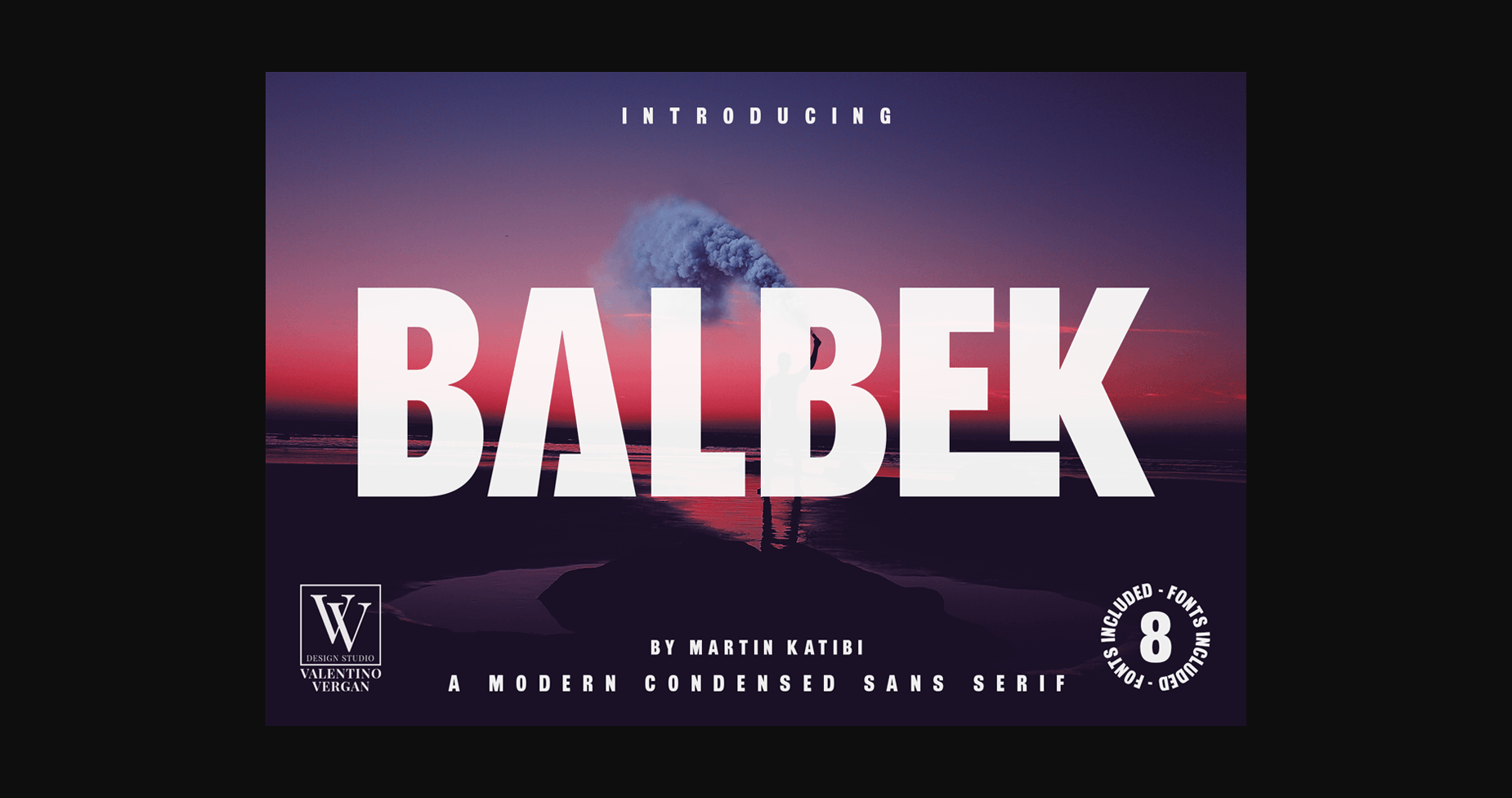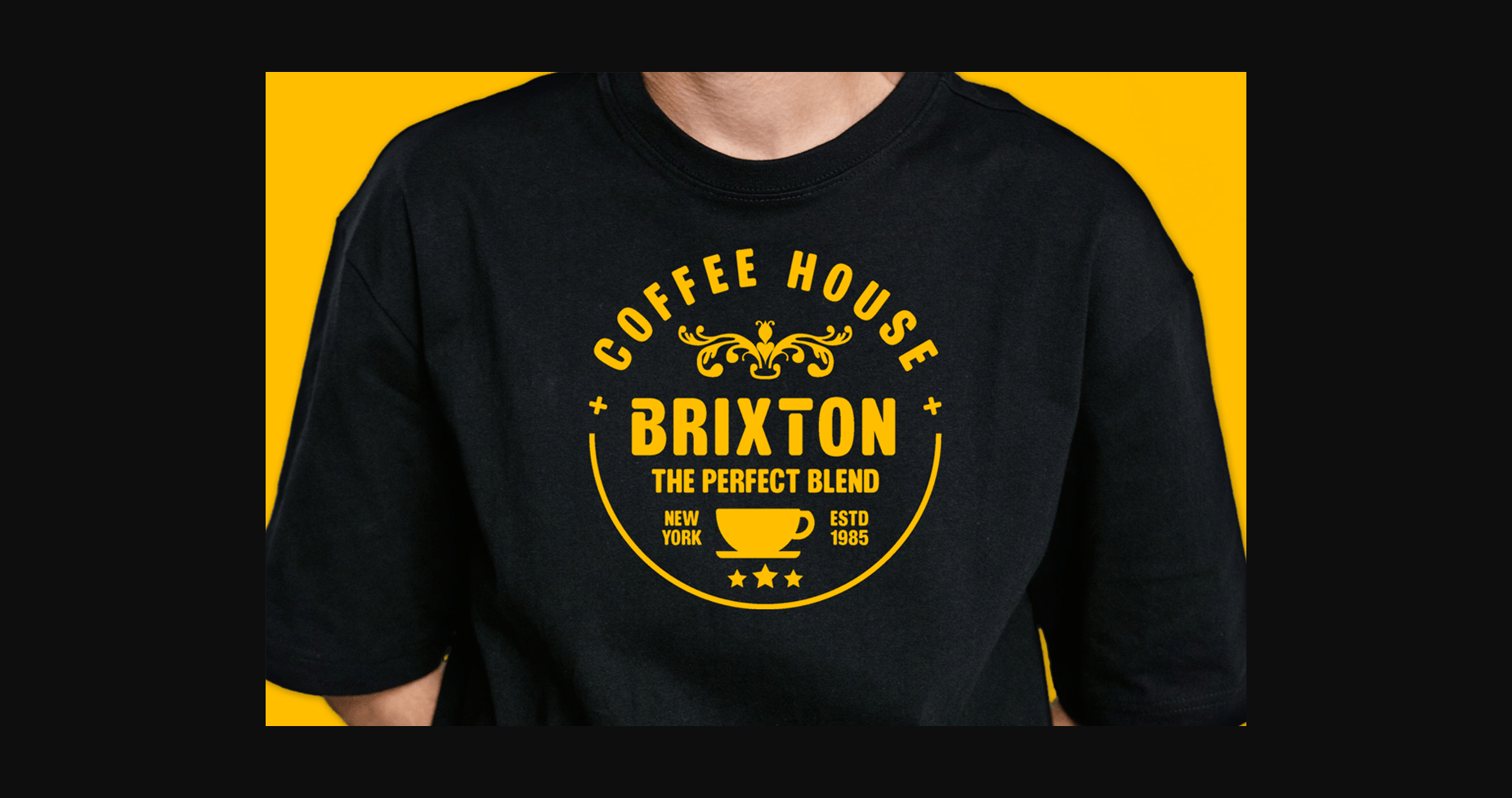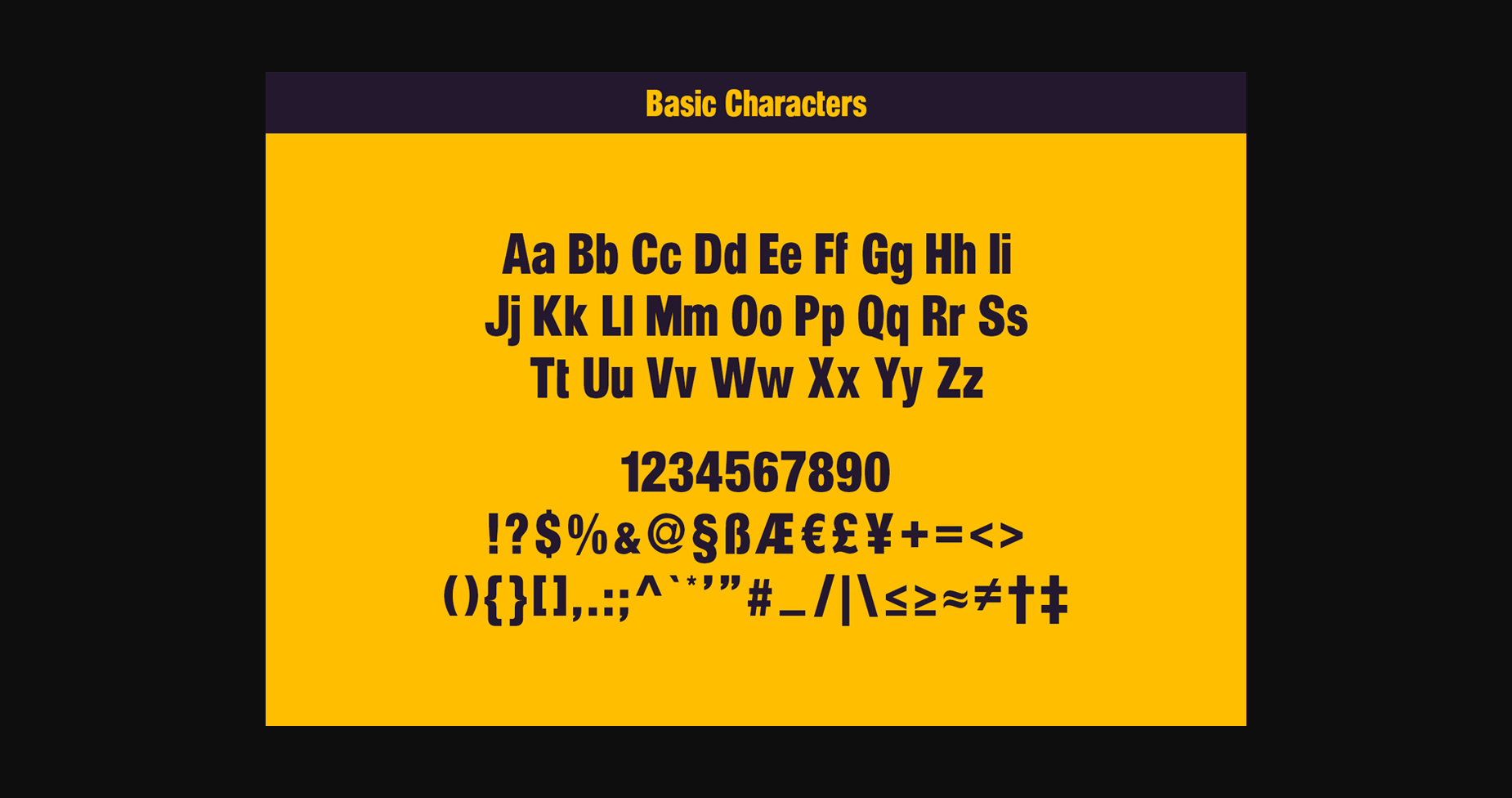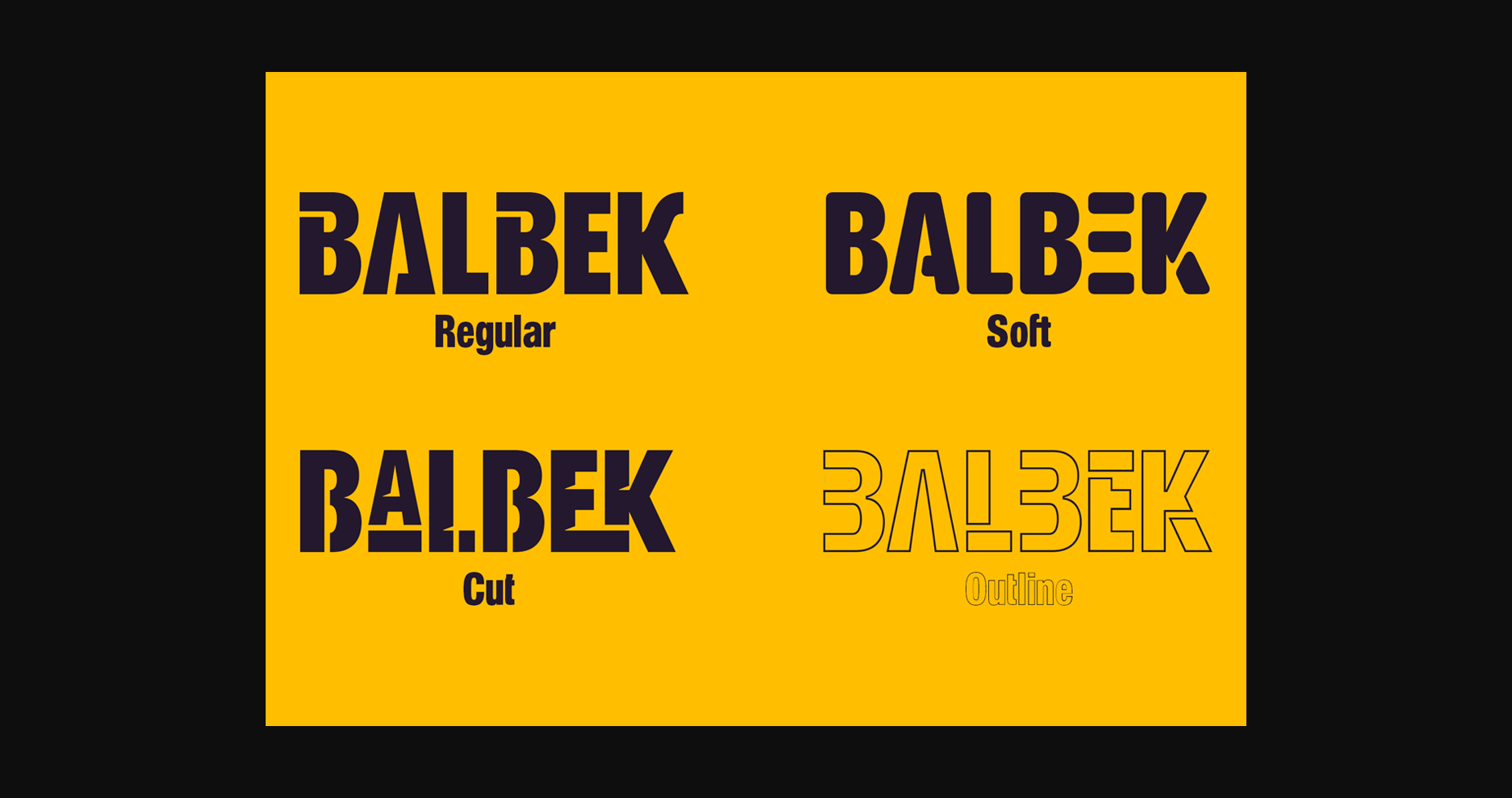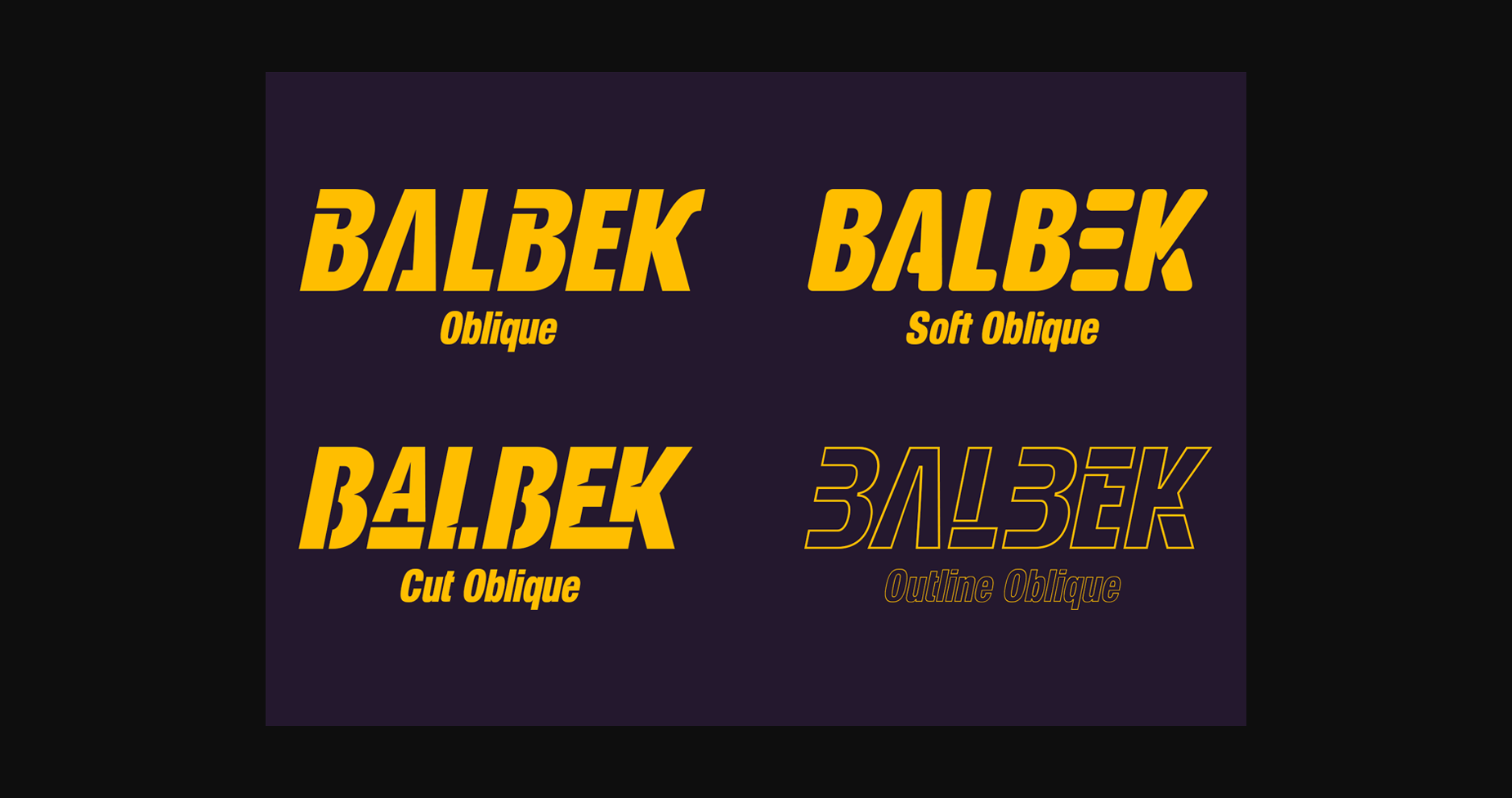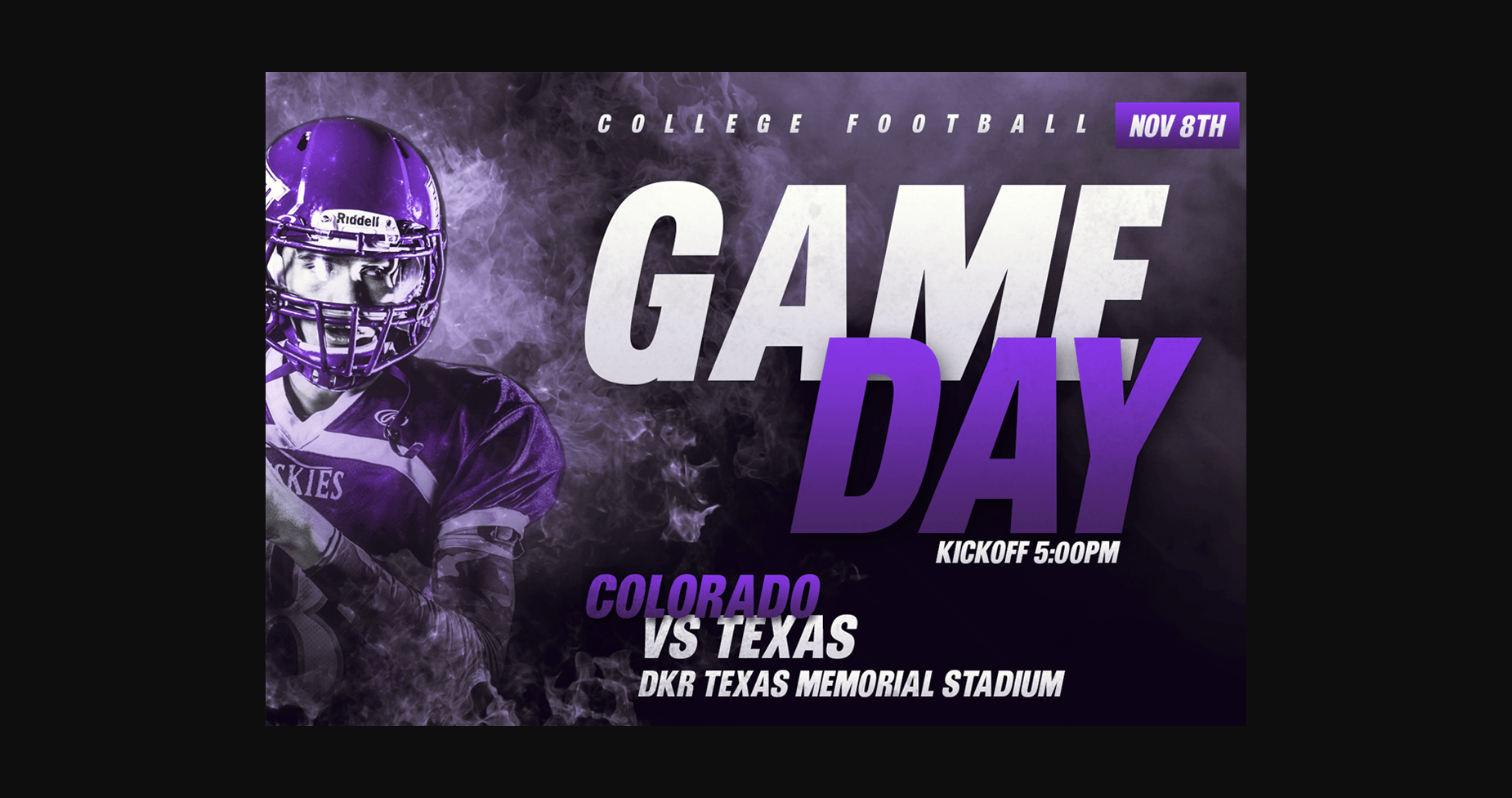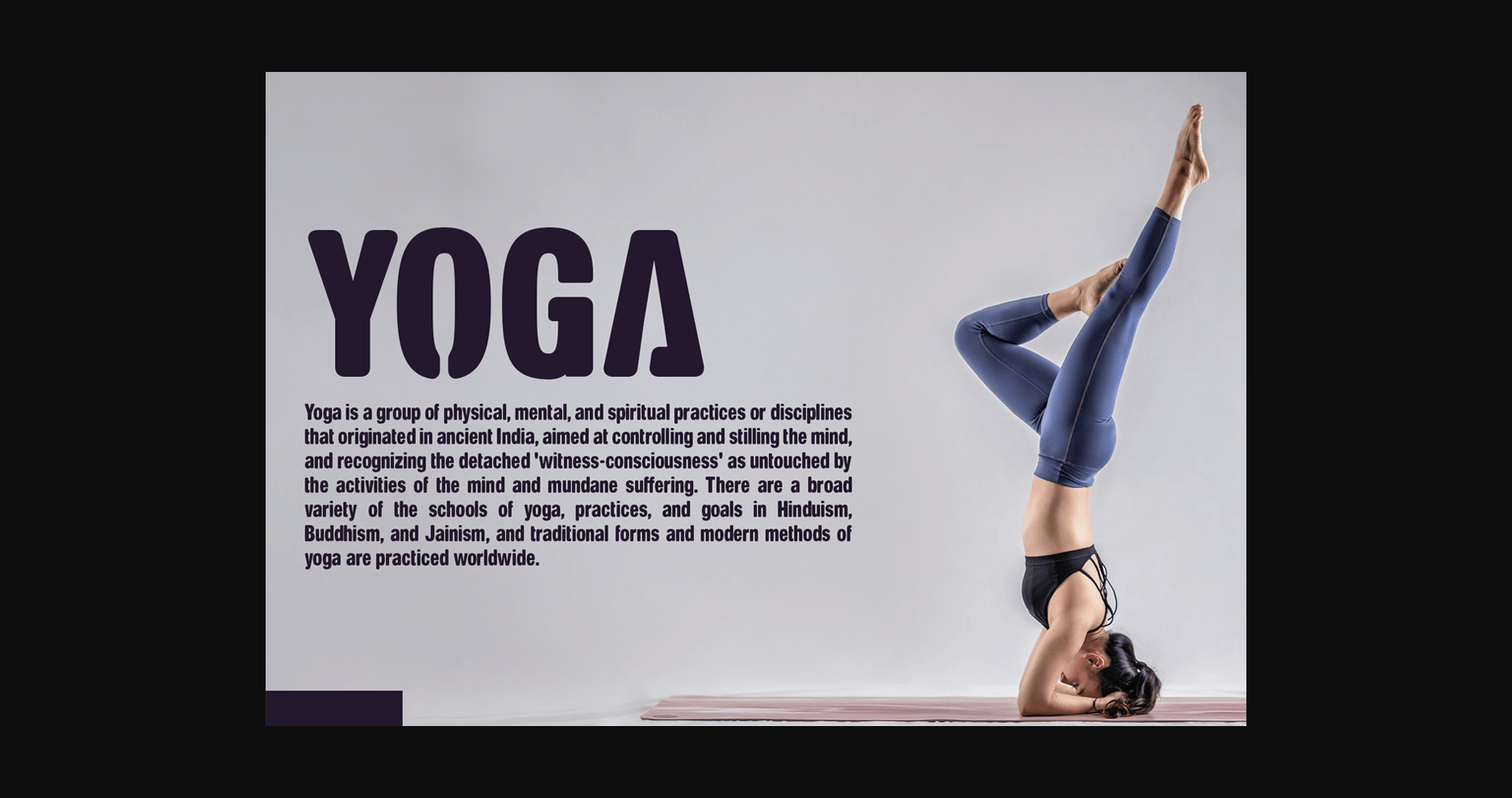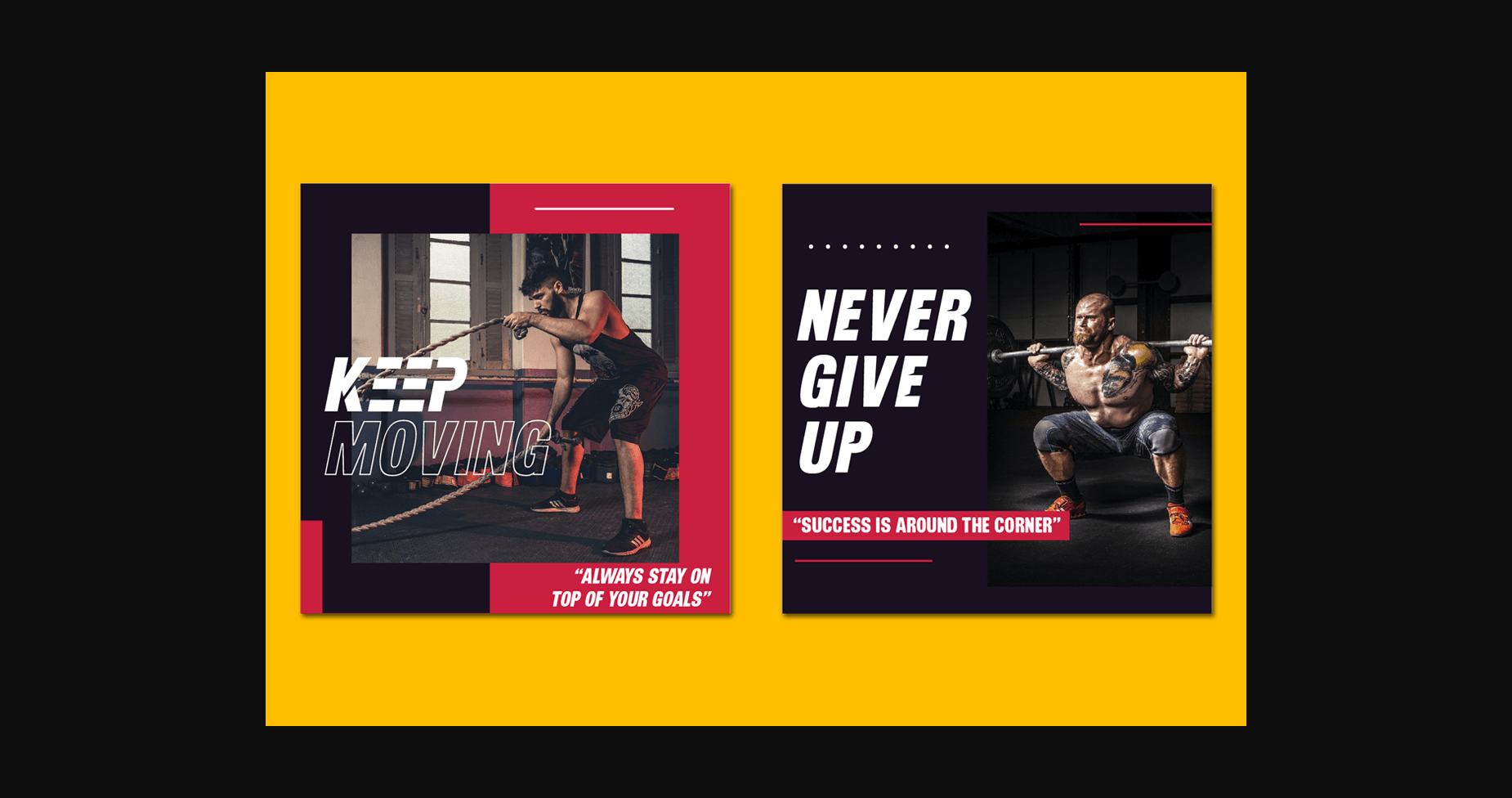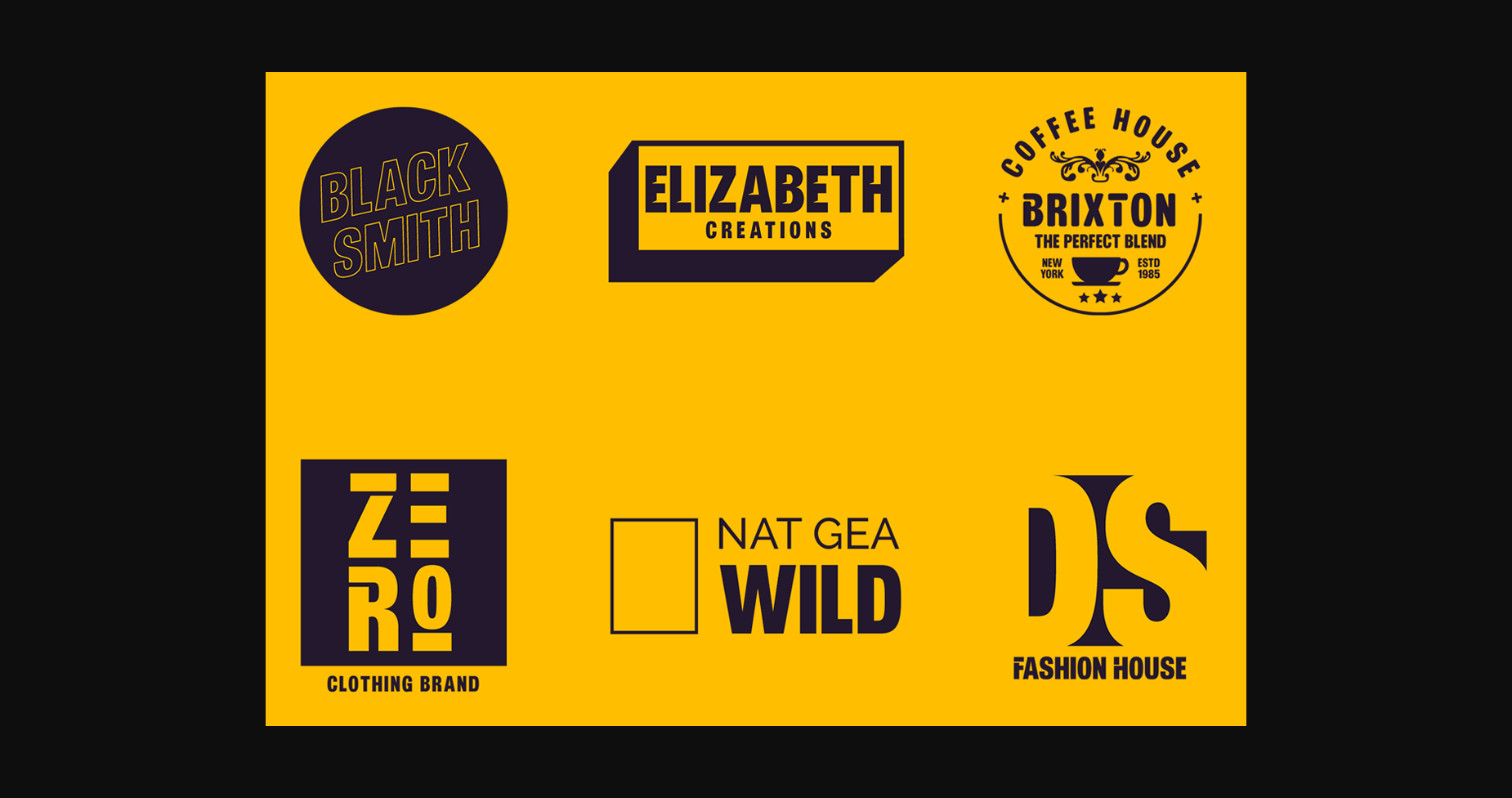
Balbek Font
About Balbek Font
Introducing “Balbek” – A modern “condensed” sans serif ligature typeface.
The Balbek font is an eye-catching, heavy, and condensed sans serif typeface. The inspiration for this font was other condensed sans serifs such as Gabo Drive and Impact.
The Balbek font is great for use on headlines, advertisements, product packaging, newspapers, and posters. It has a lot of features that will make your next project stand out.